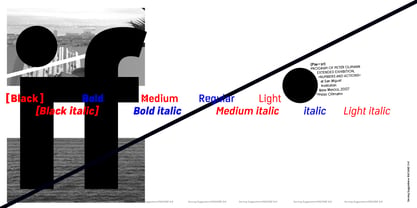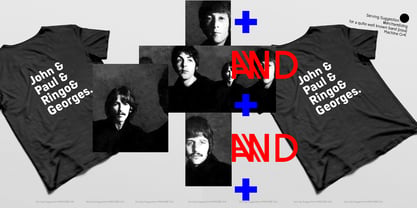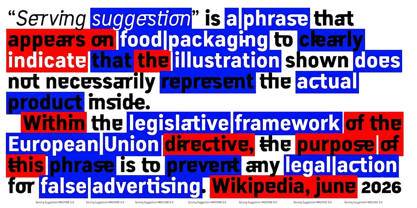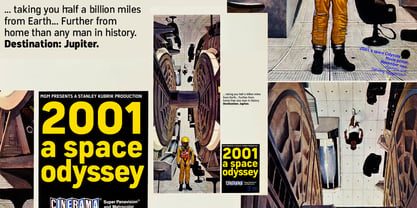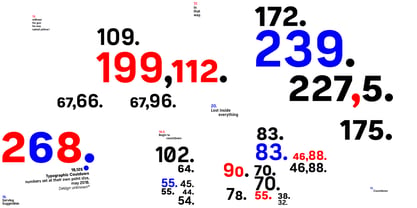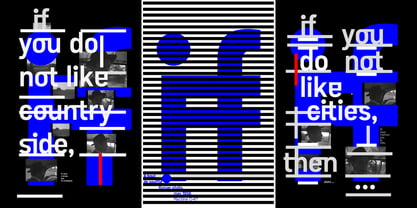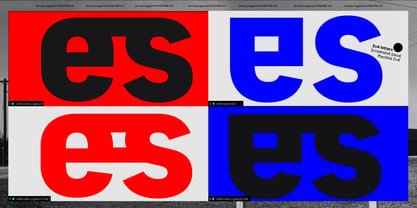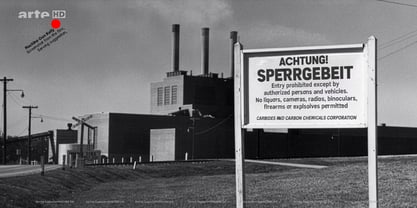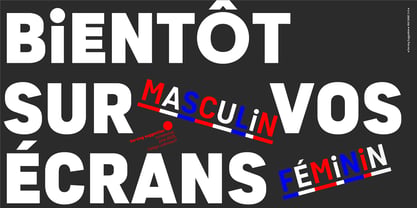
Machine GK
Machine GK is a typeface built around a rational structure inspired by 20th-century technical and industrial alphabets. Its design is based on a deliberate economy of means: simple shapes, low contrast, and a homogeneous rhythm in the direct lineage of typefaces like DIN-Mittelschrift.
This apparent neutrality serves as the foundation for an extensive ligature system developed as a fully fledged typesetting tool. Divided into several stylistic sets, these ligatures introduce varying degrees of transformation to the text. Some subtly affect its texture, while others produce more visible fusions capable of altering the silhouette of words.
Designed as much for text setting as for display use, these ligatures offer an alternative to traditional hierarchy mechanisms such as italics, weight variations, or letter-spacing adjustments. Their repetition generates a specific typographic gray and imparts a distinct identity to the text while maintaining the coherence of the original system. In their most pronounced variations, they locally transform the letters they connect and alter the silhouette of words, opening up expressive possibilities particularly suited for large-format layouts and display typography.
Machine GK subverts the logic of standardization from which it stems to offer new forms of typographic differentiation and to expand the possibilities of expression within typesetting itself.